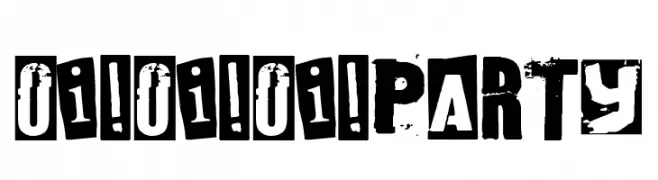
A bold, eclectic font with a ransom note style and chaotic, mismatched characters.
A playful, eclectic font with a cut-out, ransom note style.
A bold, distressed font with a grunge, ransom note style.
A chaotic, ransom note-style font with high contrast and eclectic character designs.
A bold, eclectic font with a ransom note style, featuring mixed character designs.
A bold, eclectic font with a cut-out, ransom-note style.
A bold, eclectic font with a ransom note style, featuring varied patterns and orientations.
Eclectic ransom note style font.
Collage-style ransom note font.